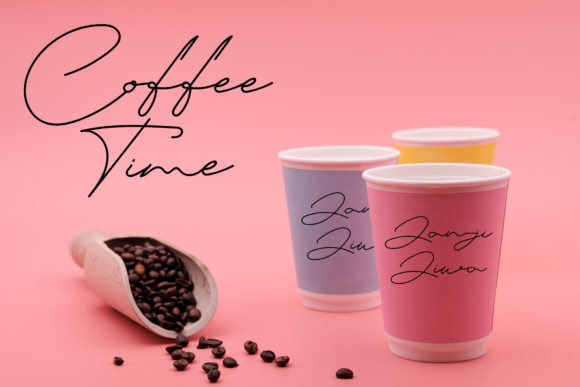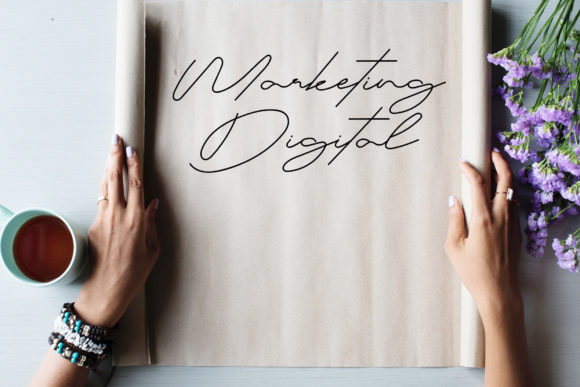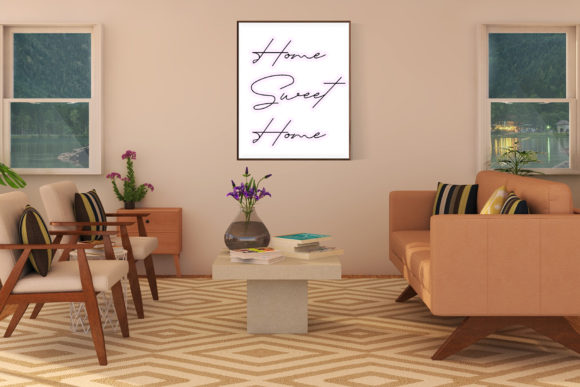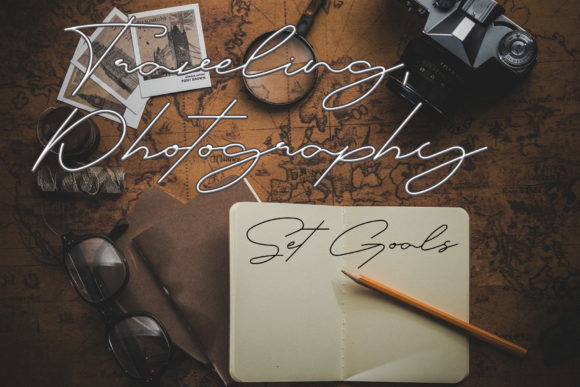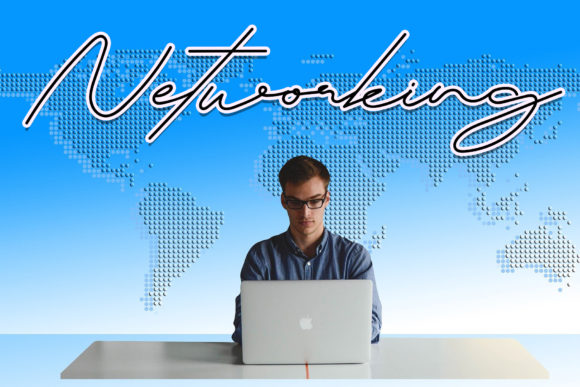
About Animals Font
Animals is a flowing and flexible handwritten font. It can easily be matched to an incredibly large set of projects, so add it to your creative ideas and notice how it makes them stand out!